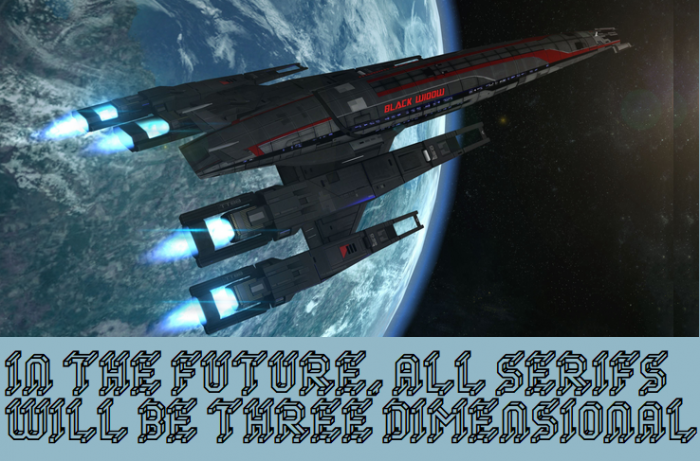
@jonrgrover - I like your fonts Z-Serifs & MetaFont.  However, is your sample here for the wrong font?
oopse wrong font :(
Not sure I've seen anything like this. Well done!
Now Jon be trippin'! 3D Serifs? You so crazy.
The serifs are nice for the futuristic font
Very inventive!
very interesting concept
Where do you guys come up with these ideas?  LOL
Okay, now I want to do a 3-d font where the letter is visible on more than one plane, because I keep seeing H's on the top of the letters.